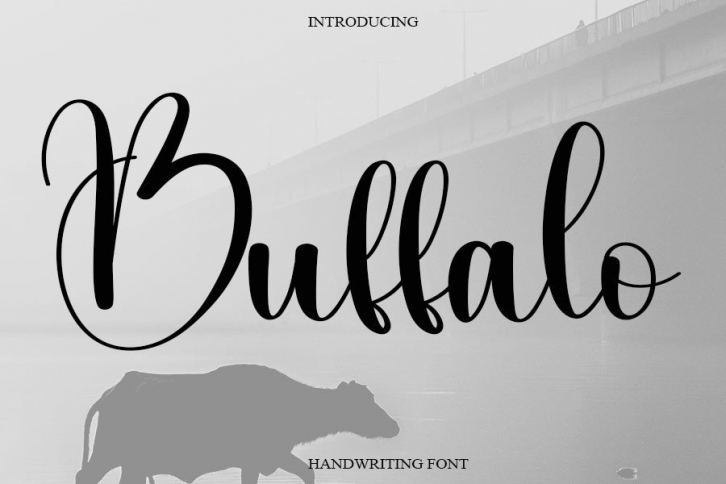
Buffalo is a sweet and beautiful handwritten font. Featuring characters that dance along the baseline, this font will add a luxury spark to any design project you wish to create!